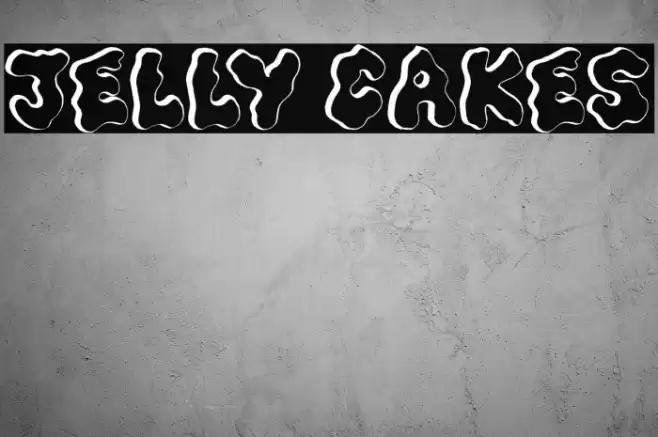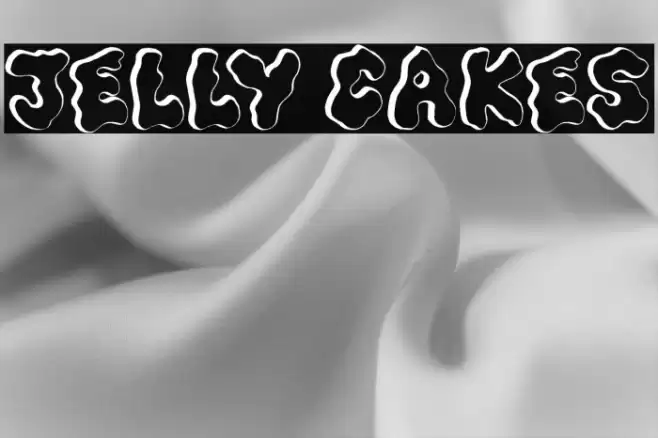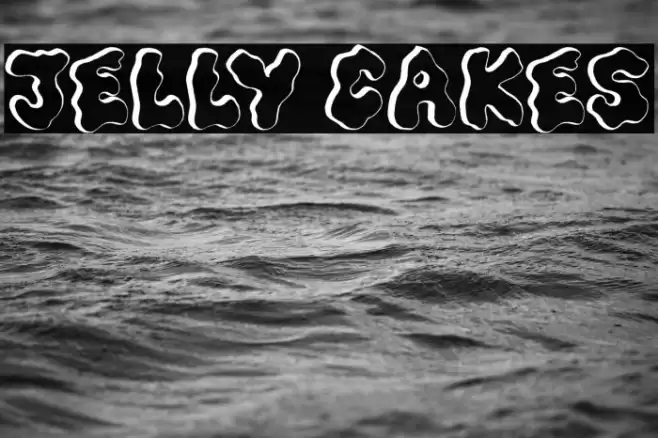
Jelly Cakes Font
Jelly Cakes Description
This playful and whimsical font features bold, rounded characters with a unique, wavy outline that gives the impression of a jelly-like texture. The letters are designed with a consistent thickness, creating a cohesive and visually appealing look. The font's style is reminiscent of fun, carefree designs, making it perfect for projects that require a touch of humor and lightheartedness. The uppercase letters are uniform in height, and the overall design maintains a sense of balance and harmony. Its distinctive appearance ensures that it stands out in any application.
A playful, wavy font with a jelly-like texture and bold, rounded characters from Cartoon fonts.
- Font: Jelly Cakes
- Proposed Projects: Ideal for children's book covers, playful branding, party invitations, and creative posters.
- Overall Style: Playful, Whimsical